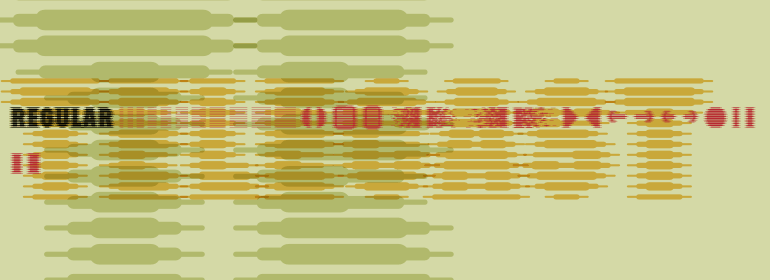
Telecast
Telecast is a futuristic display sans with a fractured, signal-distorted look that feels pulled from old broadcast graphics and screen interference. Its bold, geometric construction is cut with scanline, striped, and stencil-like effects, giving it a glitchy, high-contrast presence that reads as experimental, tech-forward, and deliberately deconstructed.
This family includes 2 styles—Telecast and Telecast Spare Parts—making it a strong option for designers who want both a main statement face and an even more fragmented companion. Use it where impact matters: posters, branding, music graphics, apparel, packaging, or other display work that calls for a digital, CRT-inspired edge.
Created by Device, Telecast brings together modular structure, optical illusion texture, and a distinctly broadcast-era attitude. It is especially well suited to projects that want to feel electronic, disruptive, and visually charged without losing a clear geometric foundation.